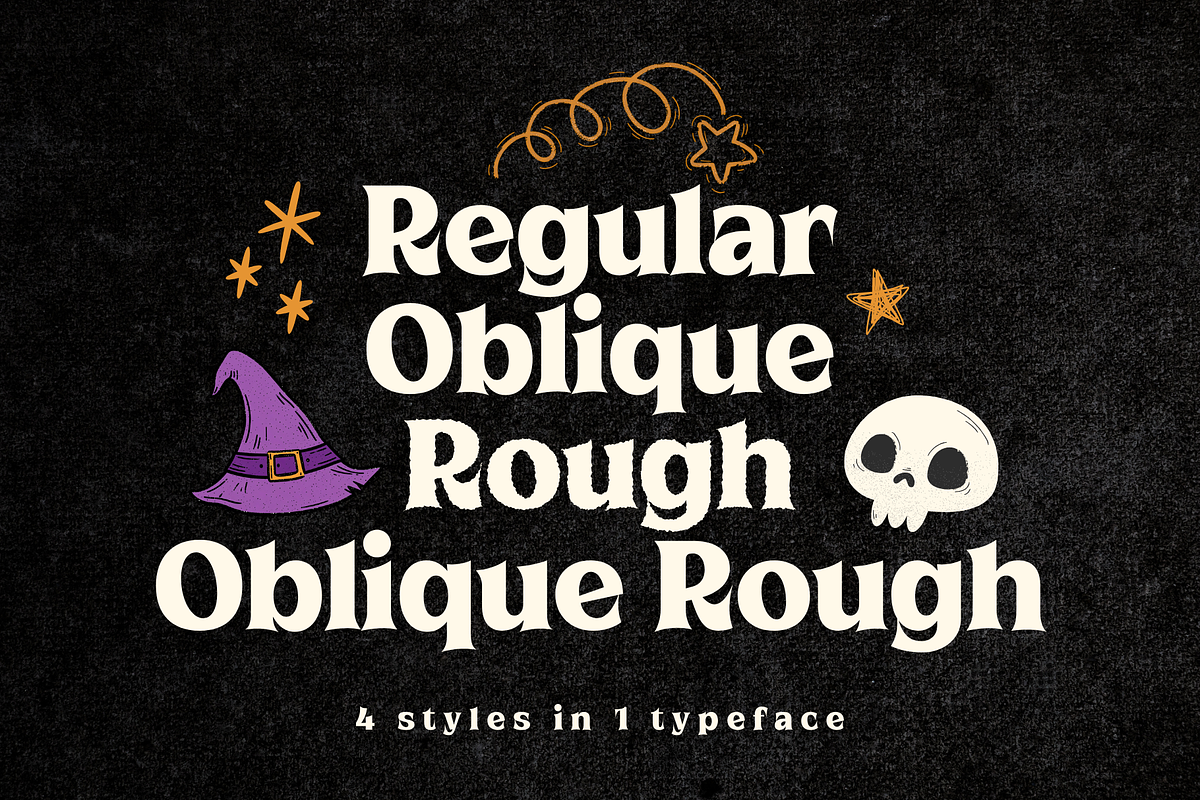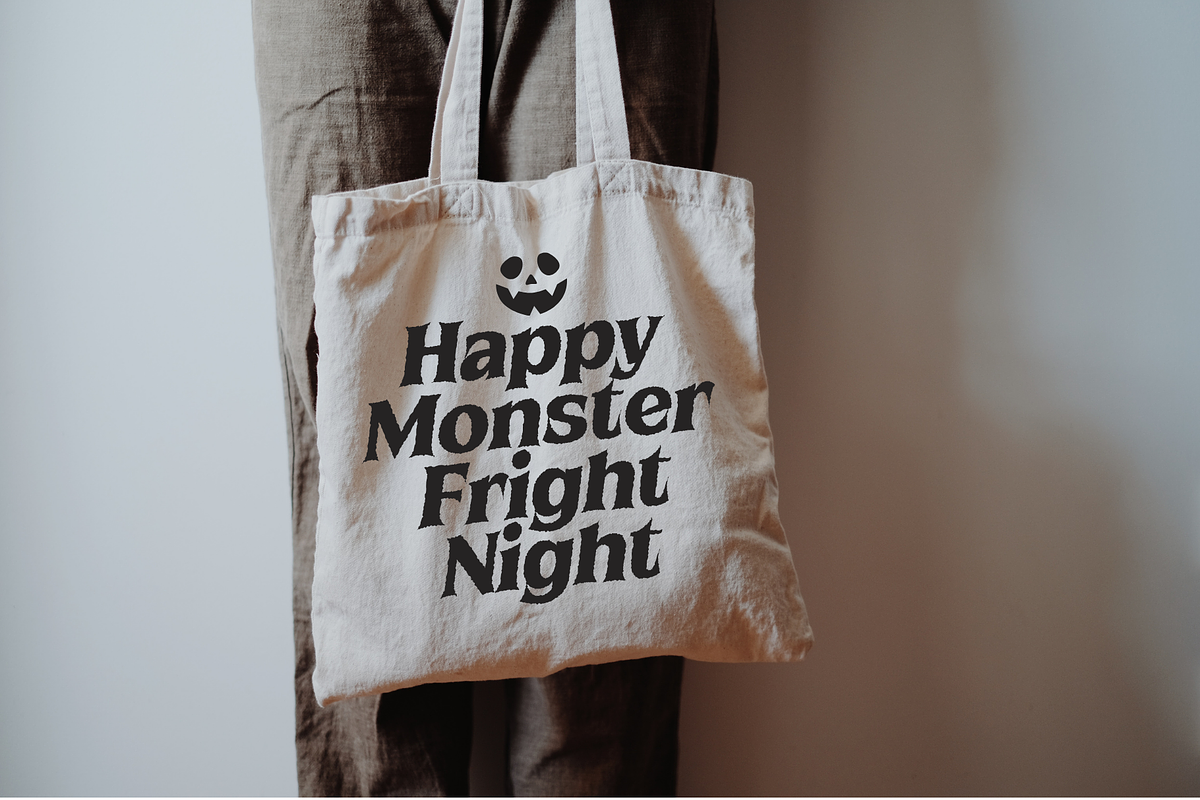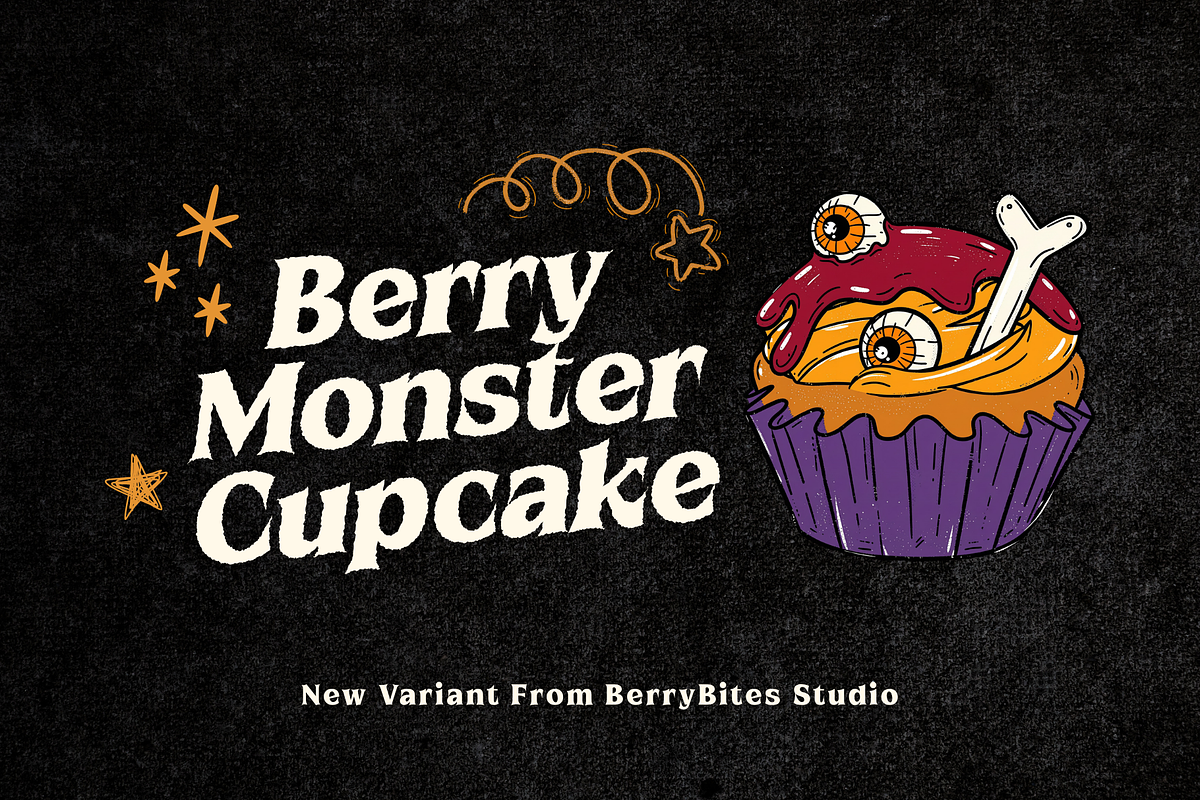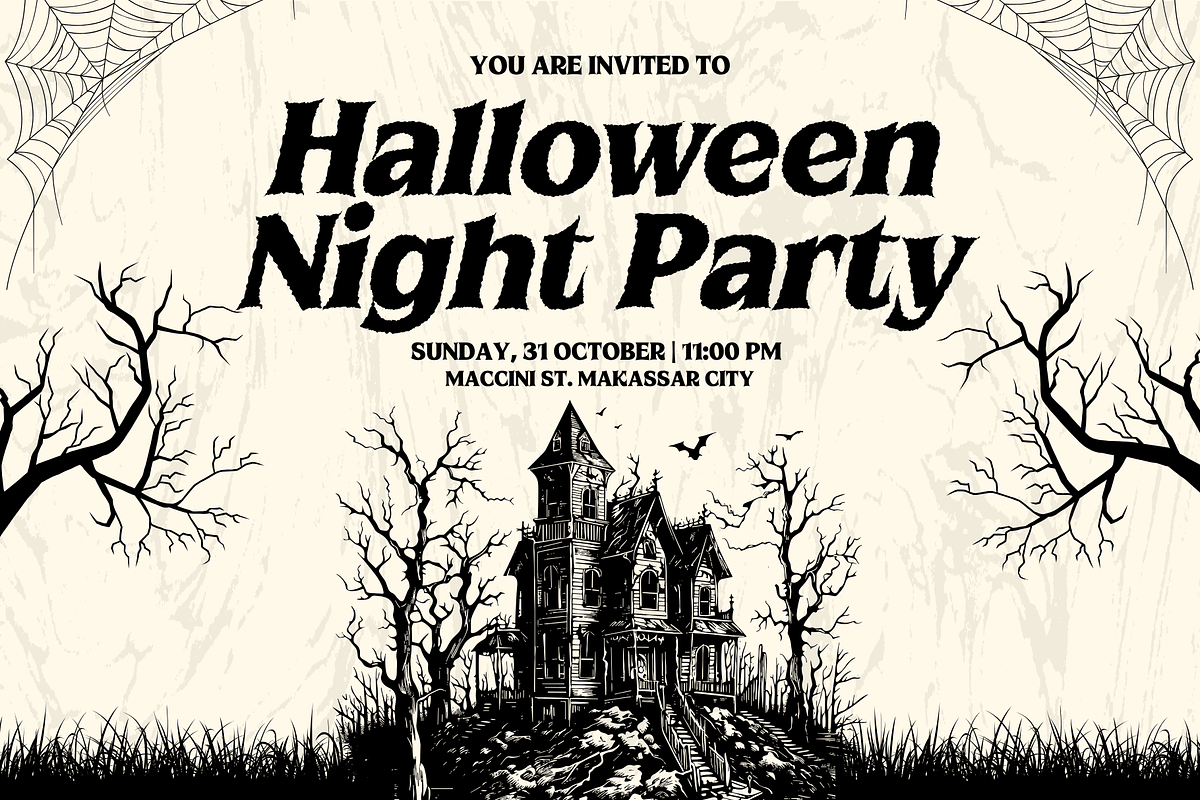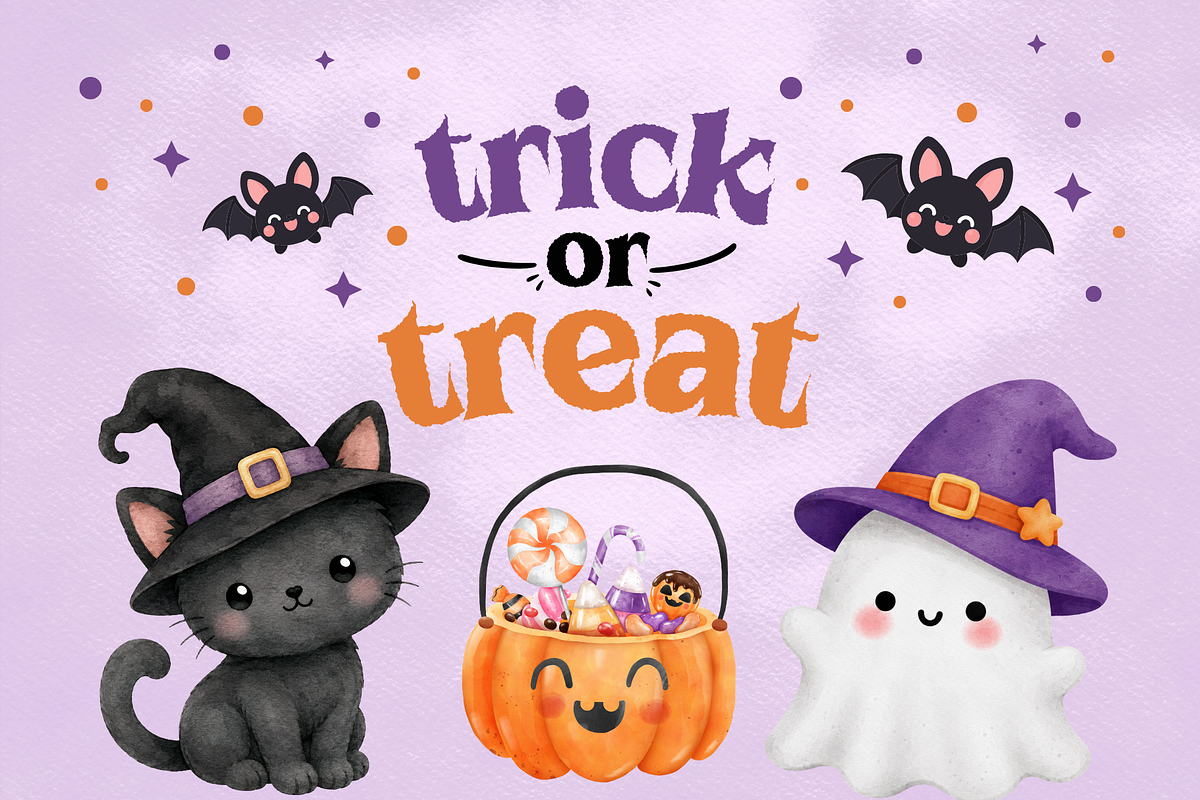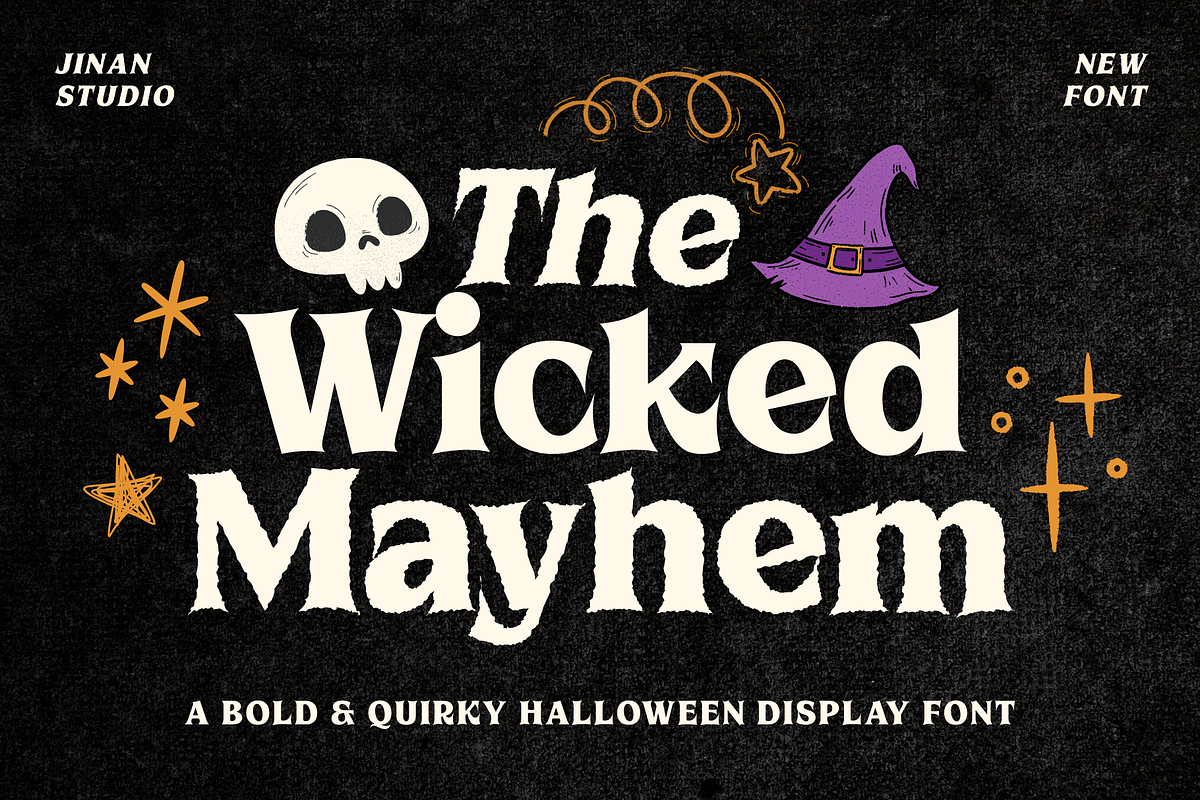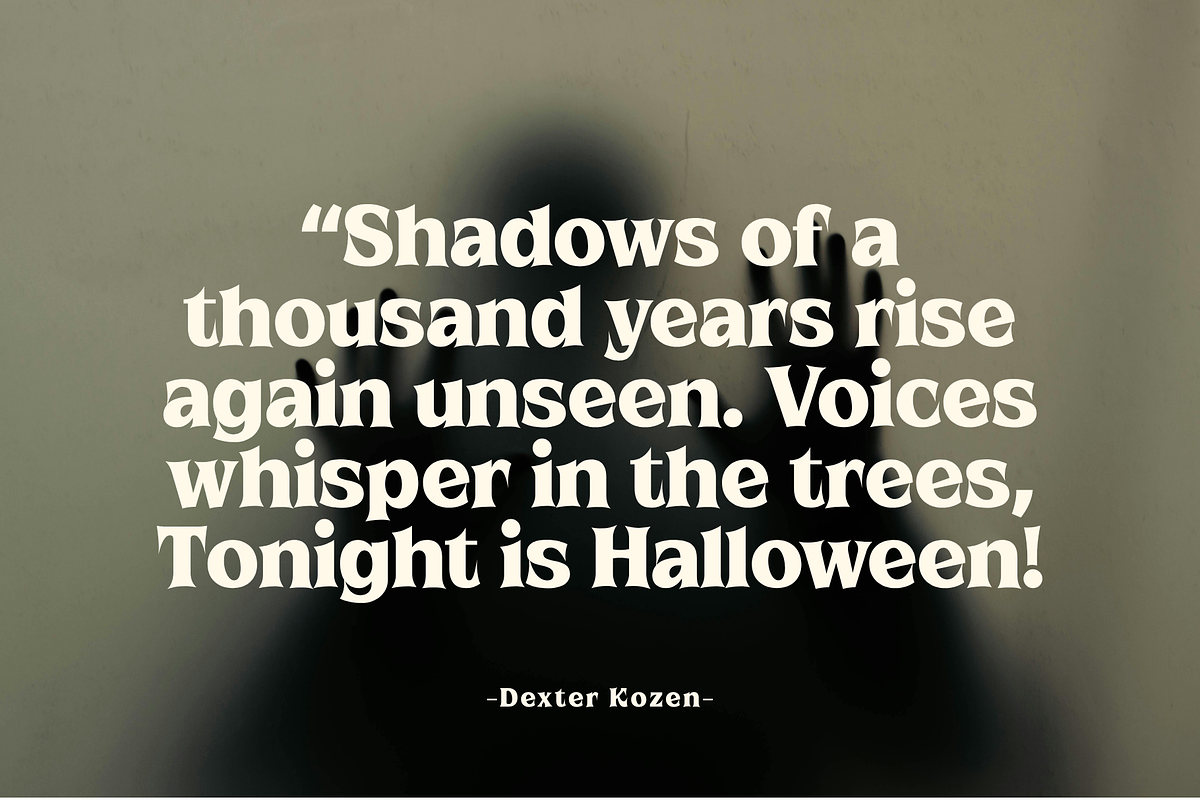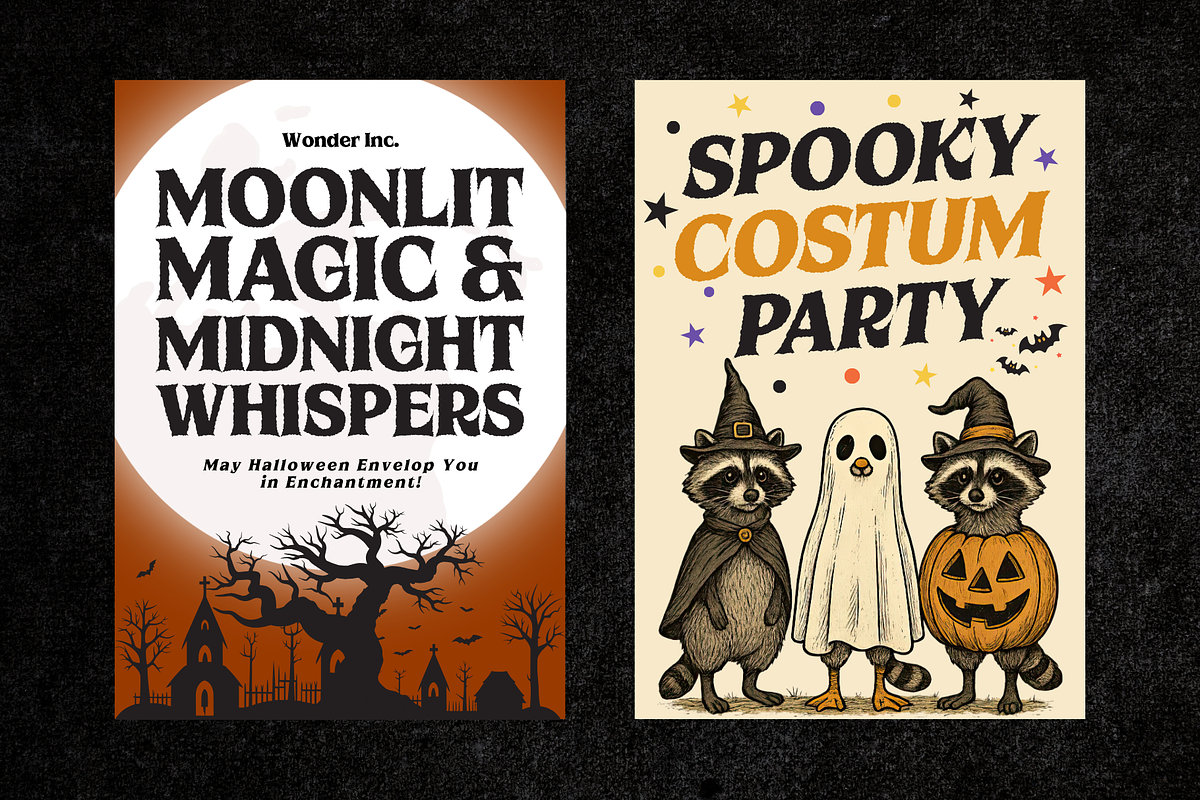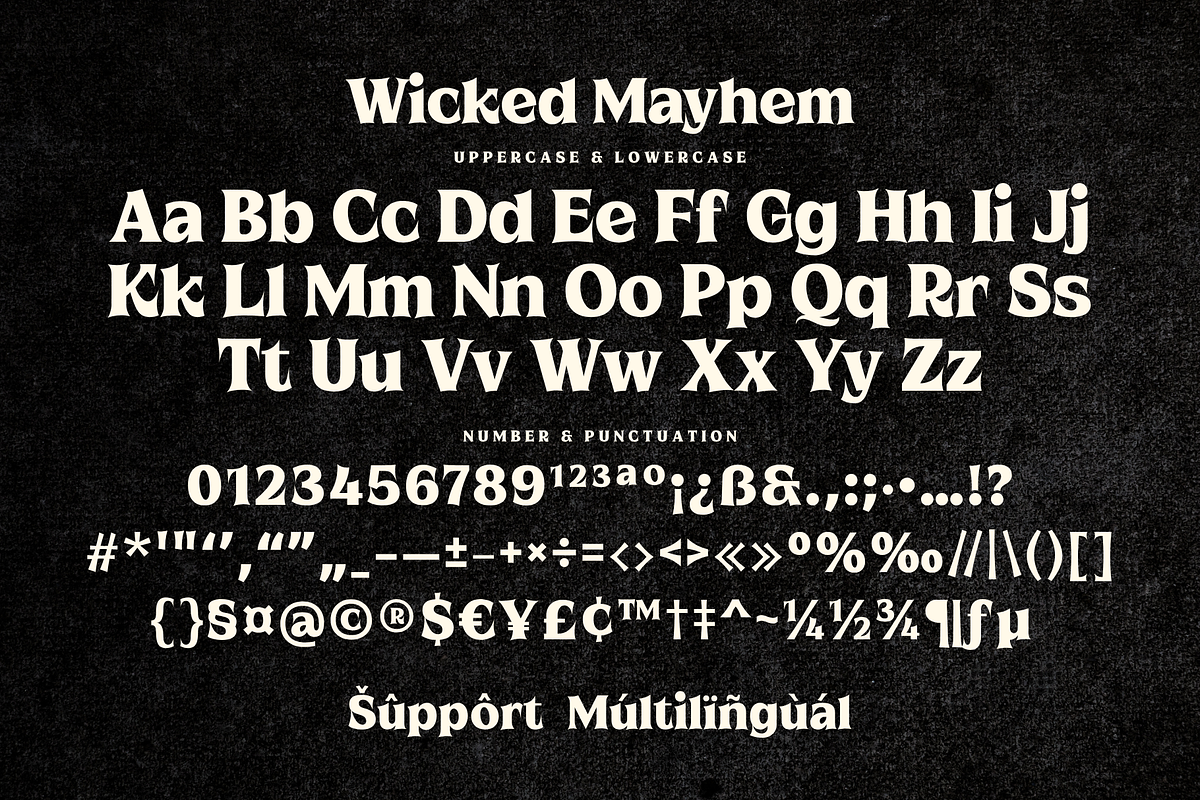
Wicked Mayhem
Wicked Mayhem is a bold and quirky Halloween display font with a spooky, playful personality. Featuring chunky, irregular letterforms and a hand-drawn distressed texture, this font brings a fun and mischievous vibe to Halloween designs while maintaining a strong and eye-catching presence.
Perfect for Halloween invitations, party decorations, spooky posters, stickers, social media graphics, greeting cards, Cricut projects, cutting machine designs, and seasonal crafts. Wicked Mayhem is designed to make your Halloween creations feel playful, creepy, and full of character.
A set of uppercase and lowercase glyphs
Number, symbol, and punctuation
Regular, Rough, Oblique